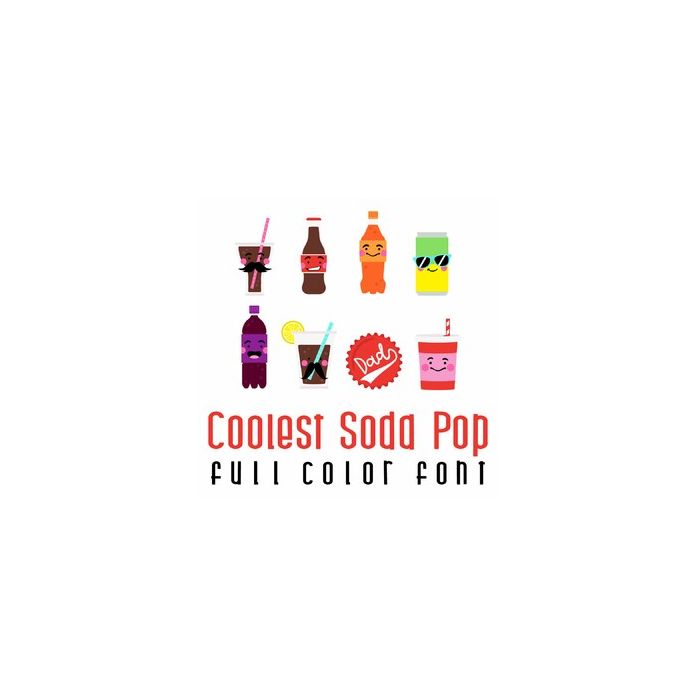
This adorable full color doodlebat font features 26 soda pop images perfect for Dad. Use this fun graphic to create fun gifts, cards, crafts, decor, party decor, planner stickers, scrap book pages and more!